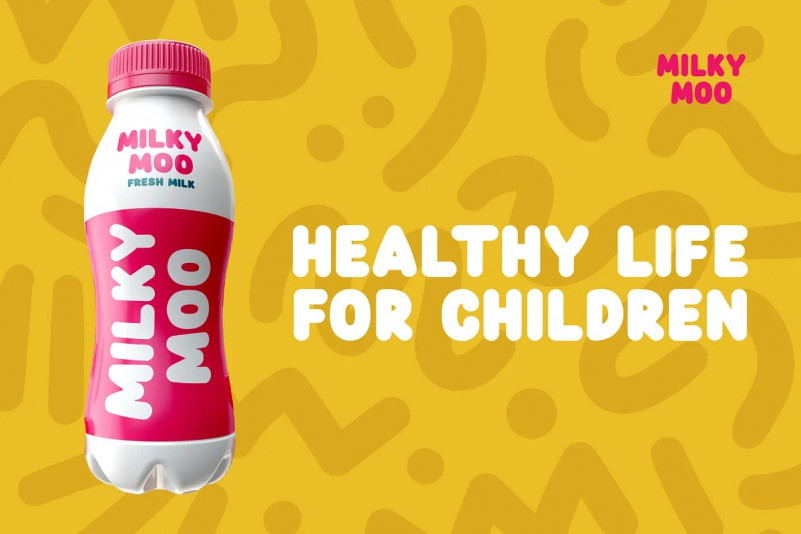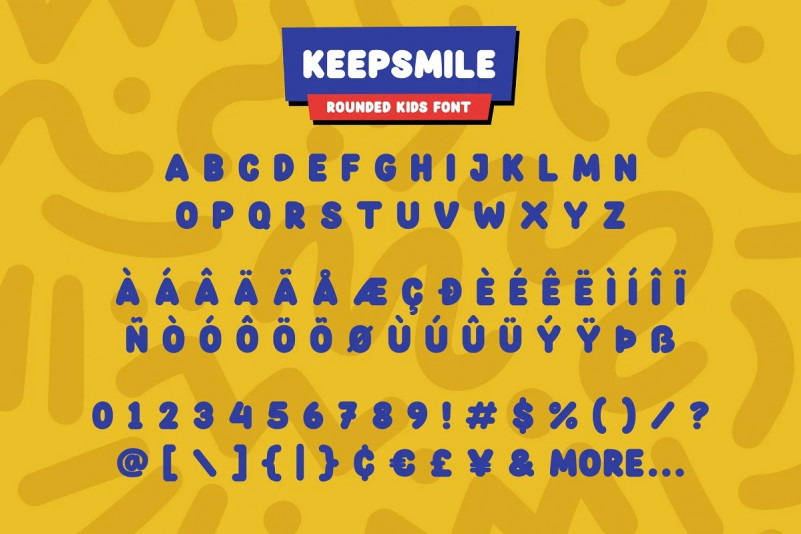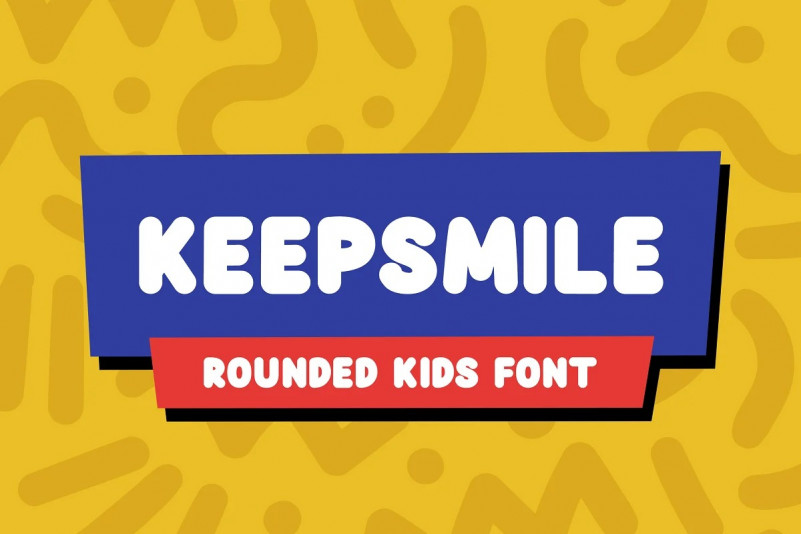
Keepsmile Display Font
Keepsmile is a Rounded Playful Sans full of charm . It will take any DIY-project to the next level!
Keepsmile is perfect for Craft , product packaging, product designs, label, branding projects, logo, wedding designs, social media posts, advertisements, watermark, invitation, stationery and any projects